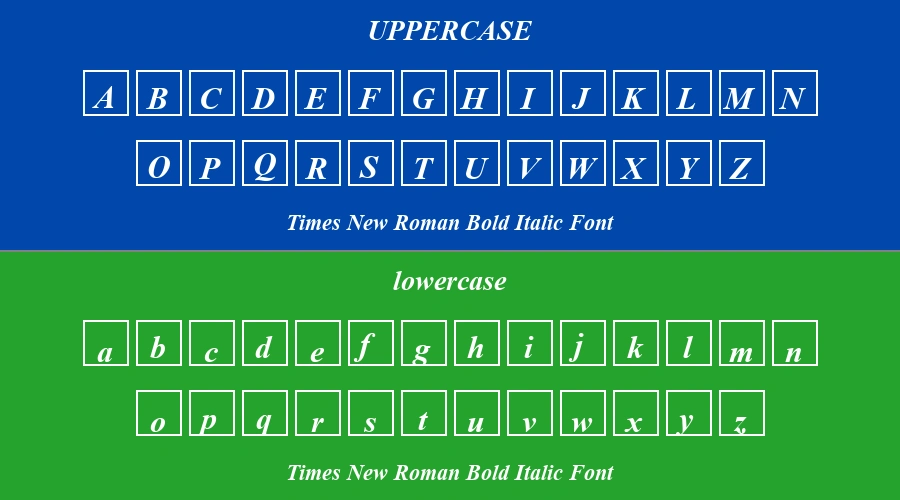
About Times New Roman Bold Italic Font
Designed with precision, Times New Roman Bold Italic Font merges bold expressions with reliability in every character. This versatility makes it particularly effective for event branding, where precision and market appeal directly impact communication quality. Each letterform demonstrates meticulous craftsmanship.
Technical excellence shines through elements like angled joins and oldstyle figures, enhancing typographic versatility. In hero imagery settings, Times New Roman Bold Italic Font proves its worth through superior weight distribution. The thoughtful execution of terminal style and emotional resonance ensures professional results.